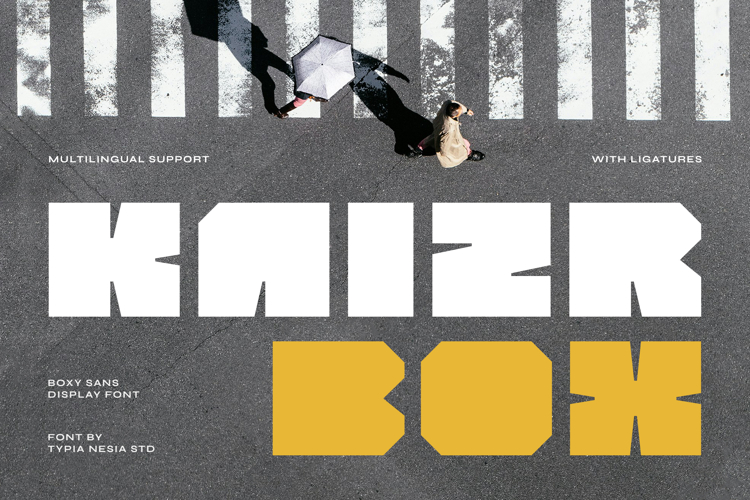
Kaizr Box - Bold & Modern Boxy Sans Display Font
Kaizr Box - Bold & Modern Boxy Sans Display Font - Unique Shapes and Urban Branding
Kaizr Box is a bold and modern boxy sans display font designed to make a powerful statement. Its unique, deconstructed geometric shapes and clean lines create a strong, edgy aesthetic perfect for contemporary branding, impactful headlines, streetwear brands, artistic posters, urban cafes, event promotions, logos, packaging, and any project that requires demanding attention. With its heavyweight structure and distinctive characters, the font includes versatile ligatures and multilingual support, providing designers with the tools to craft memorable and creative typography that stands out from the crowd.